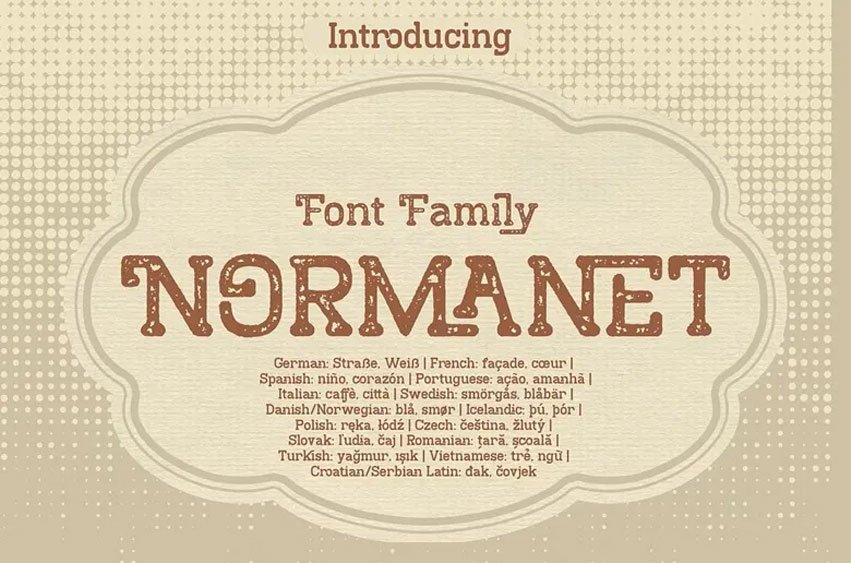
Normanet Font is a display slab serif font inspired by vintage styles, combining classic charm with a warm, handcrafted look. Its textured edges and strong letterforms evoke old packaging, retro signs, and traditional print design. The subtle distressed details give Normanet a timeless feel, making it a great choice for logos, labels, posters, branding, café menus, and designs with a nostalgic touch.
Normanet adds personality and authenticity to your work while staying clear and easy to read. Whether you want to create a retro brand or give a modern layout a vintage feel, Normanet makes your typography stand out with style and character.